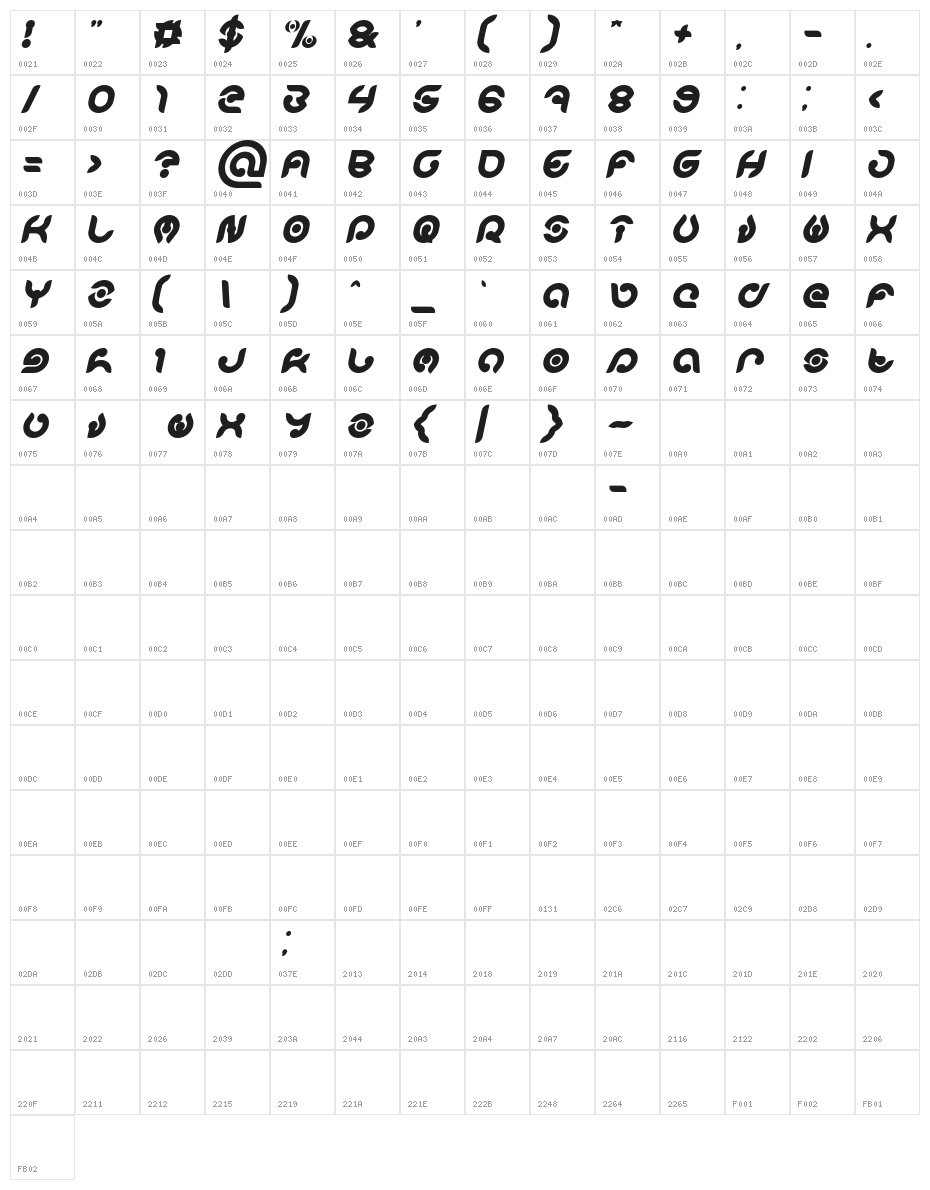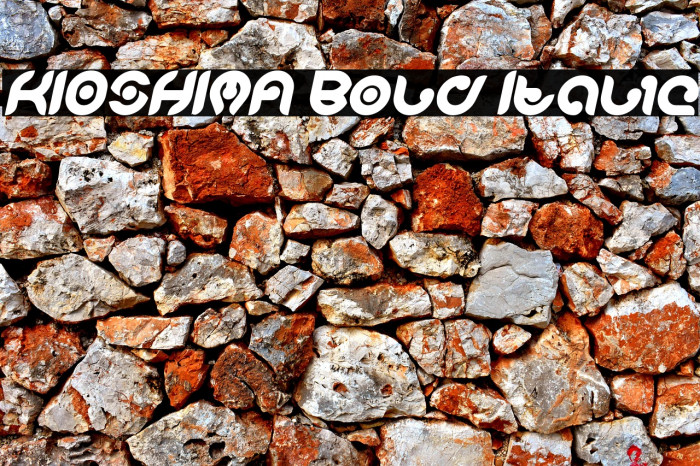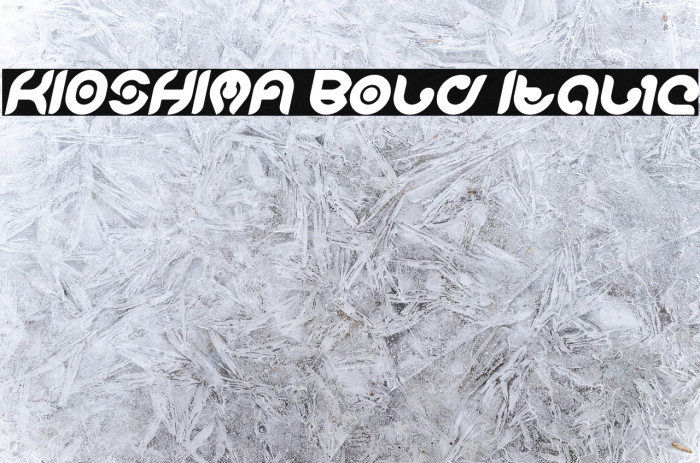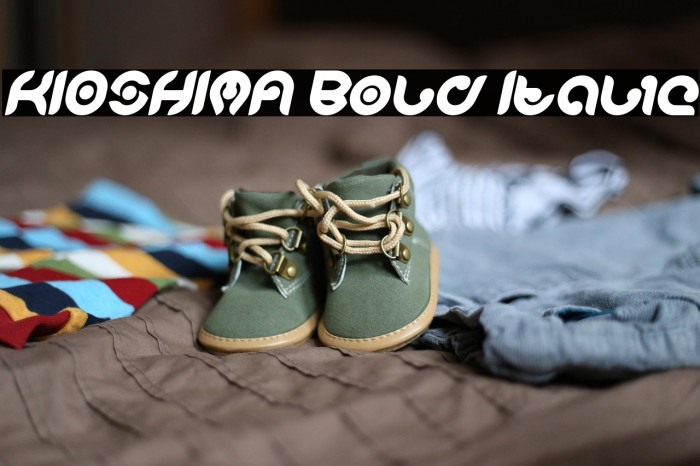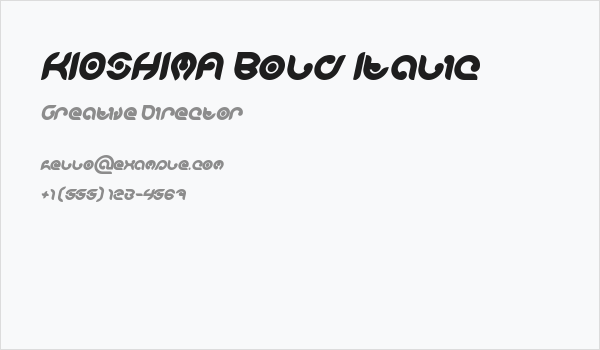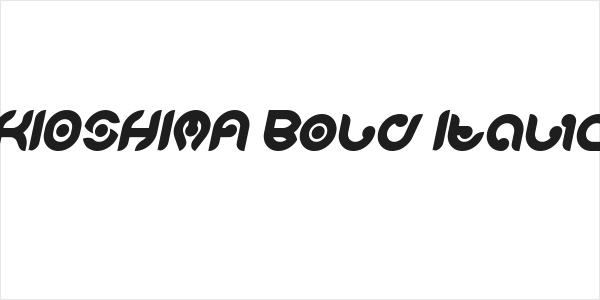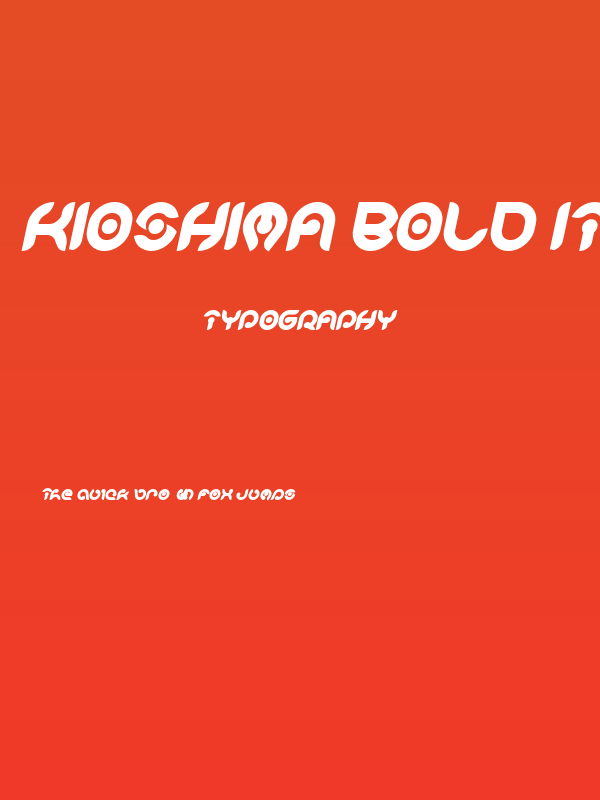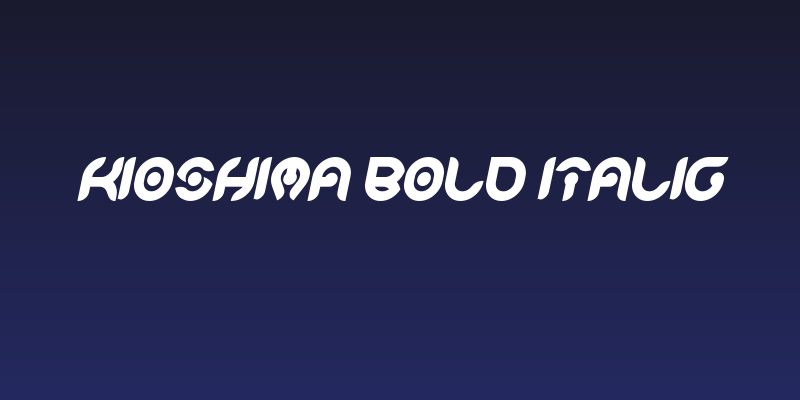
KIOSHIMA Bold Italic Font
KIOSHIMA Bold Italic Description
This bold and italic typeface features a unique and modern design with a futuristic flair. The characters are rounded and thick, with a consistent stroke weight that gives them a strong presence. The italic slant adds a dynamic feel, making the font suitable for eye-catching designs. The uppercase and lowercase letters maintain a cohesive style, with distinctive curves and angles that create a sense of movement. The numerals and special characters are equally bold, ensuring readability and visual impact. This font is ideal for projects that require a bold statement and a contemporary aesthetic.